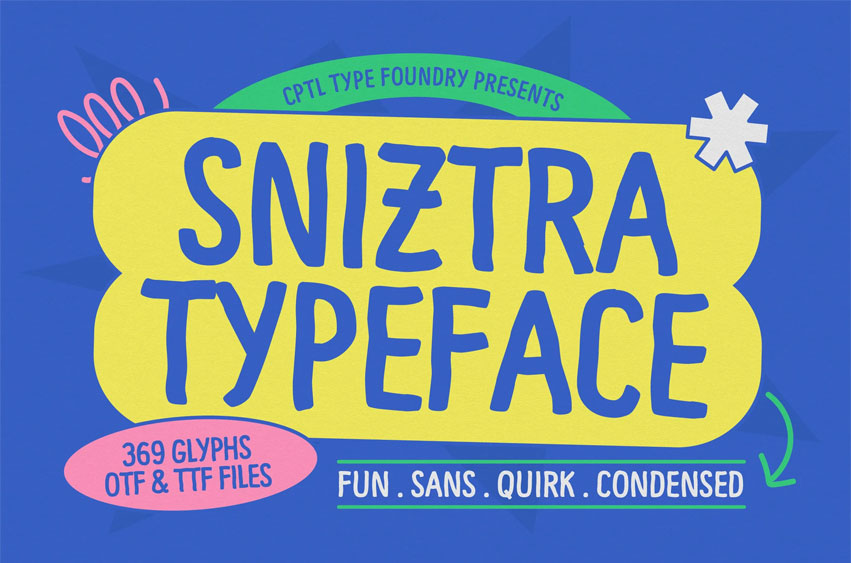
Sniztra Font is a condensed sans-serif font with a quirky, playful style and humanistic letterforms. Its warm, hand-drawn feel makes it suitable for posters, book covers, school-themed projects, and fun, approachable designs.
Ideal for branding, posters, headlines, packaging, album art, game visuals, and promotional designs. It adds personality to any creative project and helps your message stand out effortlessly.